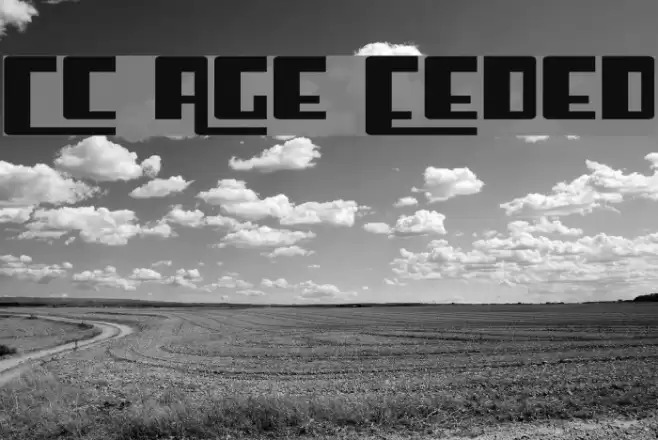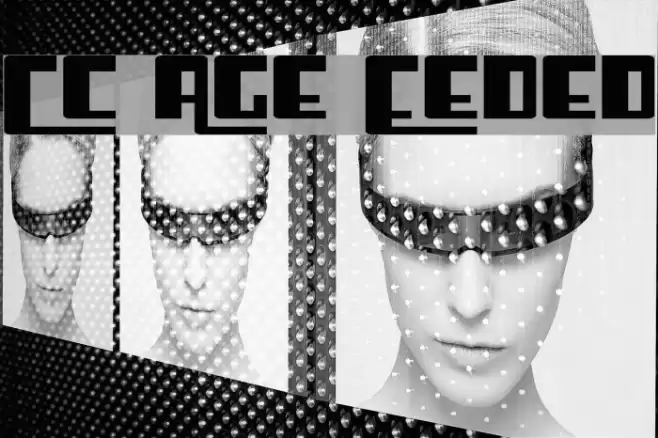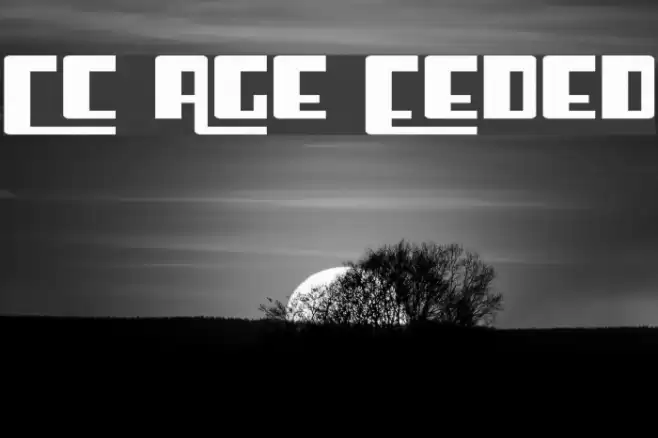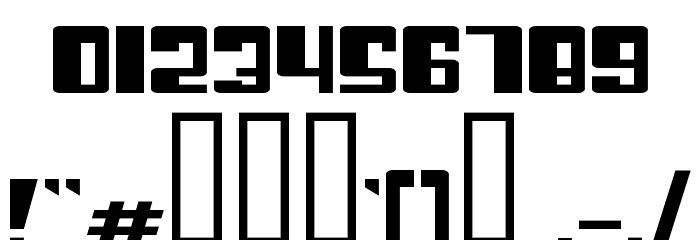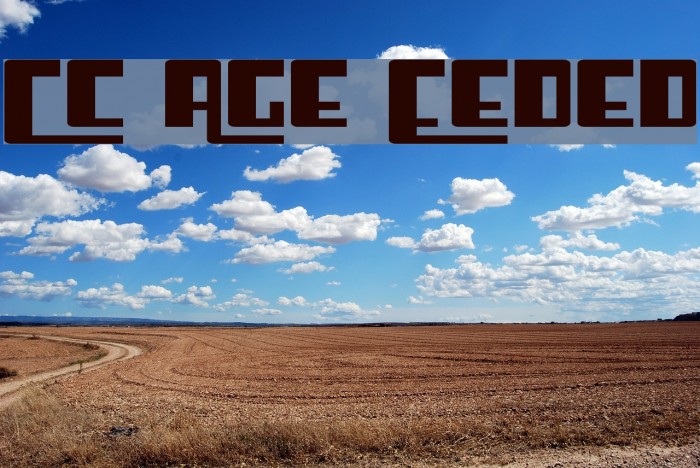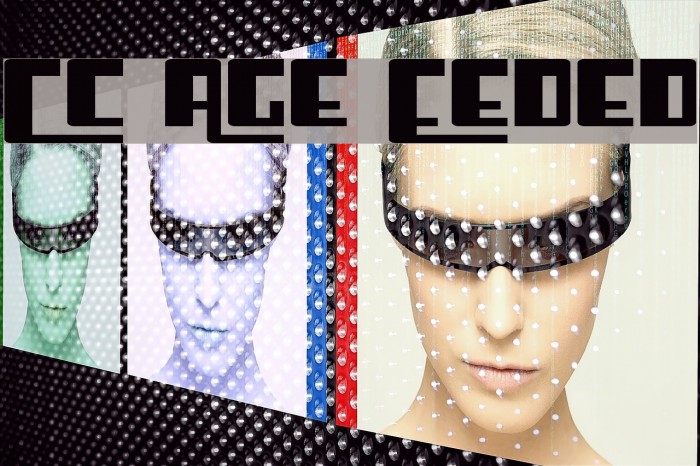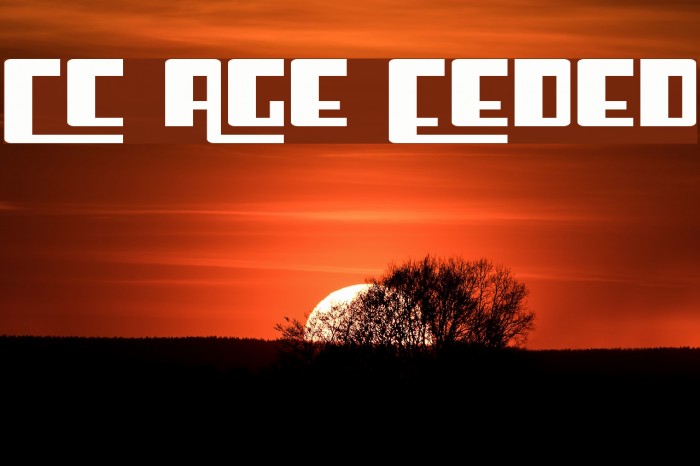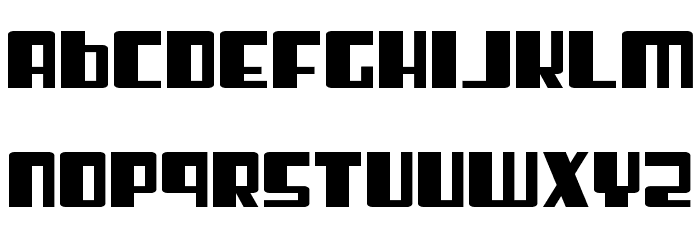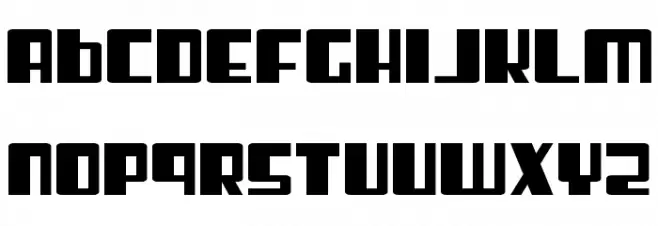
Cosmic Age Extended Font
Cosmic Age Extended Description
This font features a futuristic and geometric design, characterized by its bold and extended letterforms. The characters are constructed with straight lines and sharp angles, giving them a mechanical and modern appearance. The uppercase and lowercase letters maintain a consistent style, with the lowercase mirroring the uppercase in form. The numbers and special characters follow the same design principles, ensuring uniformity across all glyphs. The font's unique style makes it stand out, perfect for projects that require a strong visual impact.
A bold, futuristic font with geometric, extended letterforms from Futuristic fonts.
- Proposed Projects: Ideal for sci-fi themed designs, technology branding, video game titles, and futuristic posters.
- Width: Expanded
- Overall Style: Futuristic